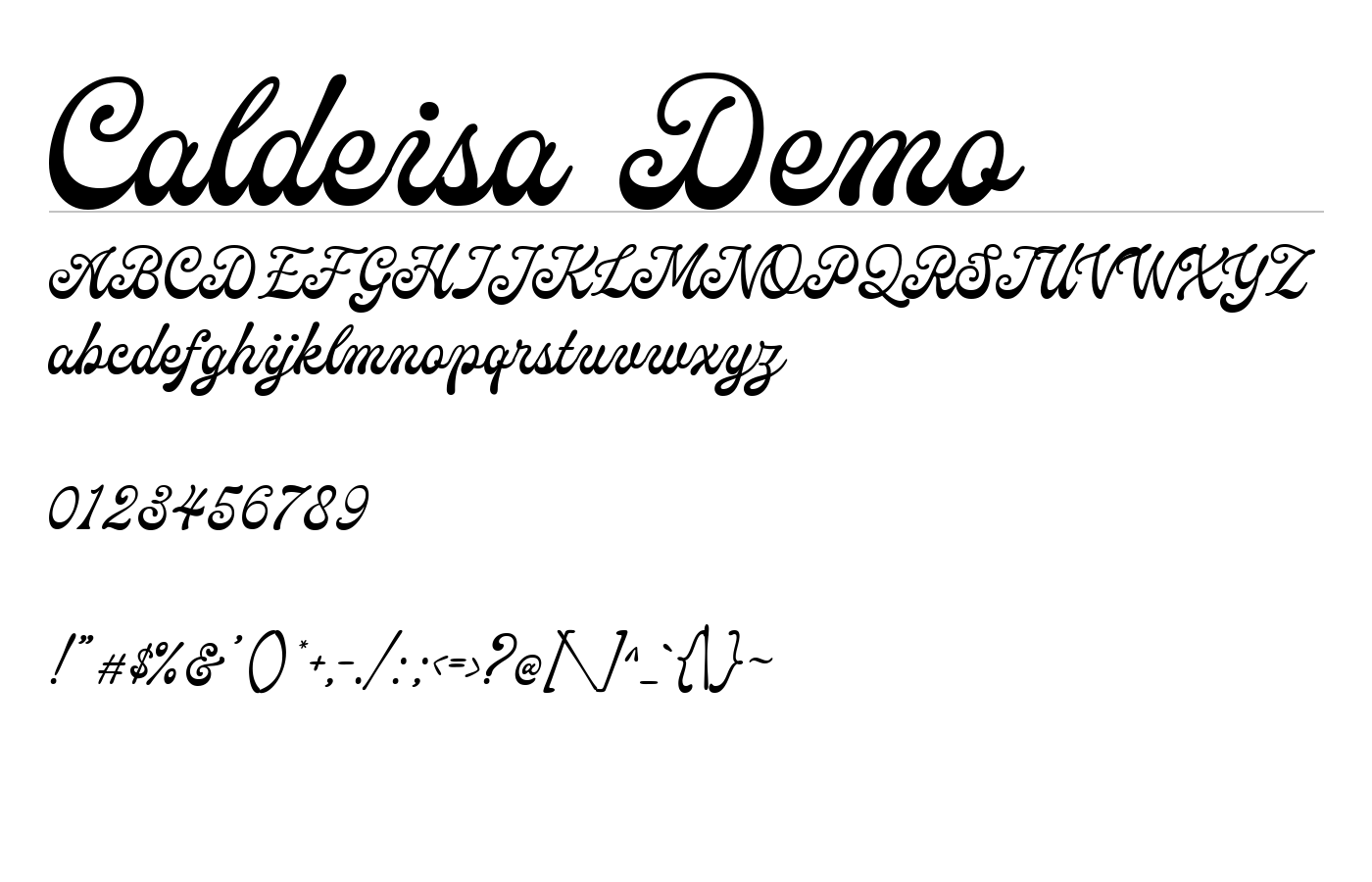
Caldeisa Demo is a charming script font with a smooth, flowing style that combines elegance with a playful touch. Its bold weight and clean, rounded curves make it highly readable while maintaining a handcrafted, casual feel, ideal for branding, invitations, and creative headlines. This font works especially well where a warm, approachable yet stylish appearance is desired.
Caldeisa Demo Font
About Caldeisa Demo Font